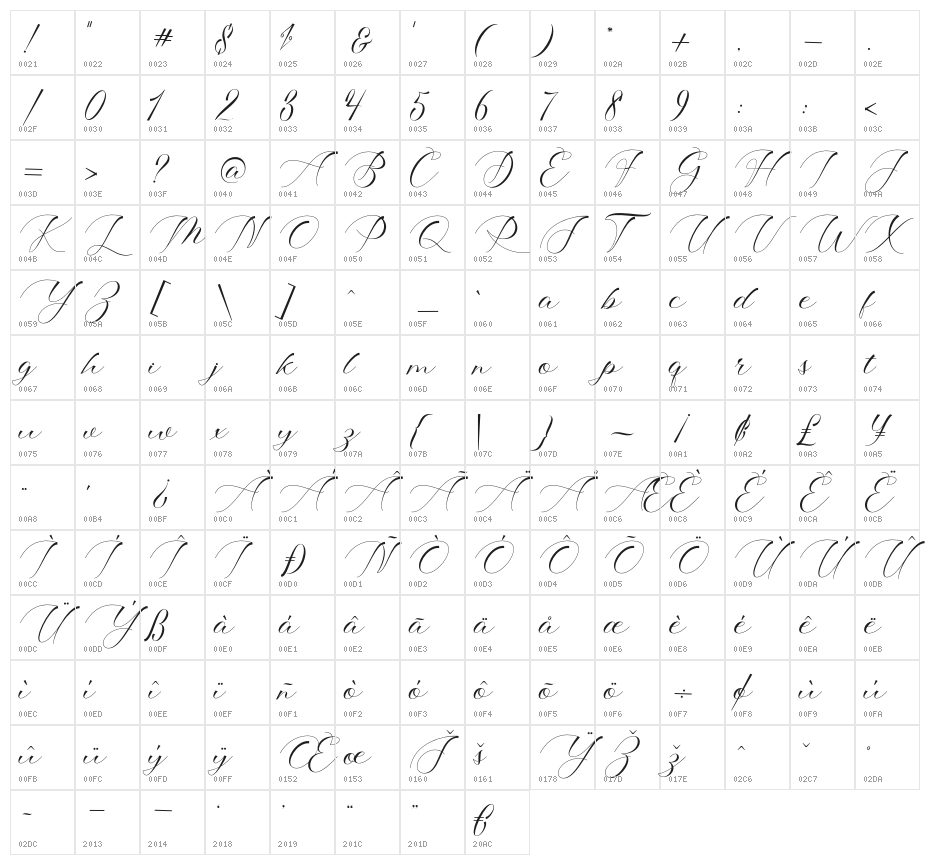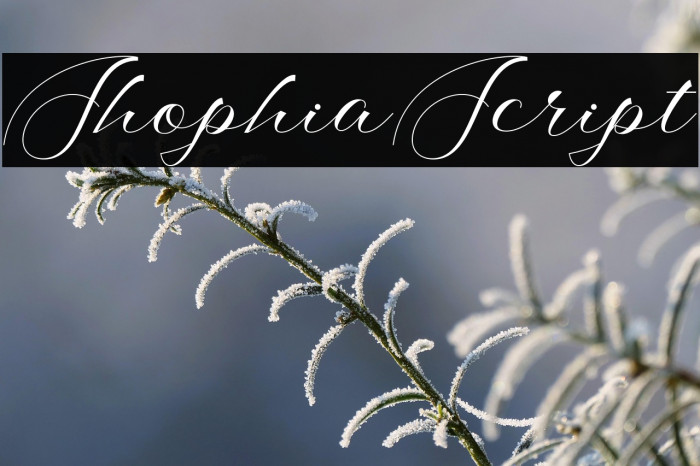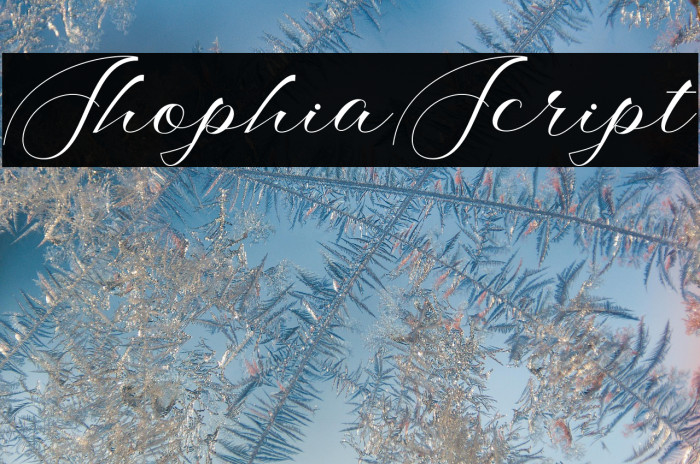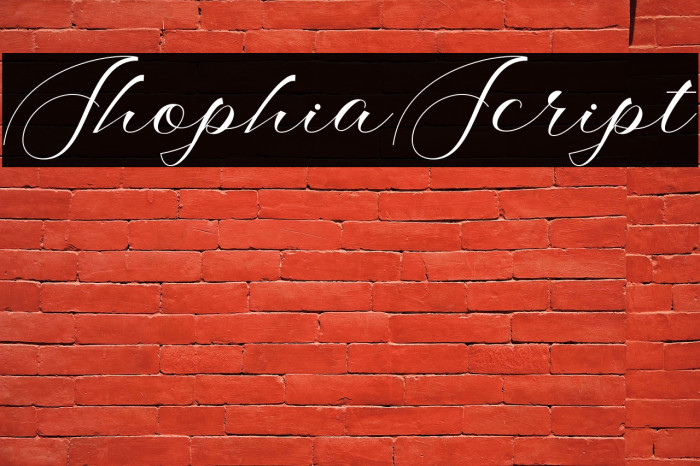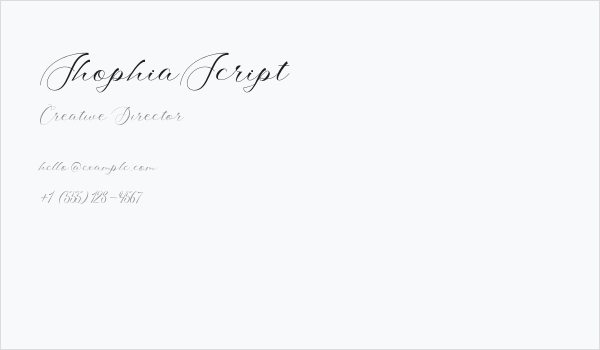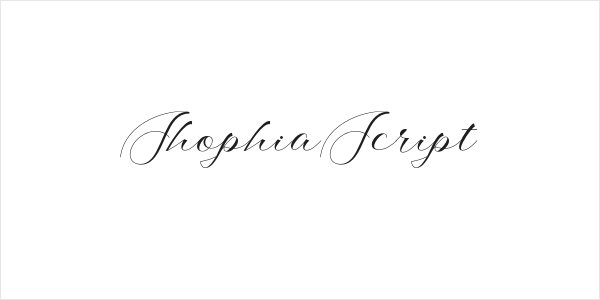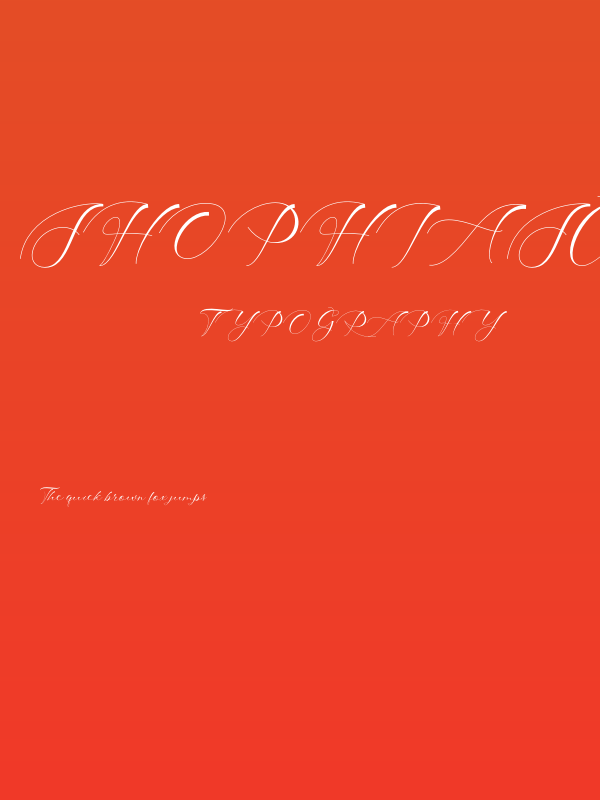
ShophiaScript Font
ShophiaScript Description
This elegant script font features flowing, cursive letters with a sophisticated and graceful appearance. The uppercase letters are characterized by their sweeping curves and flourishes, giving them a sense of movement and fluidity. The lowercase letters maintain a consistent style, with smooth connections between each character, enhancing the font's readability while preserving its decorative nature. The numerals are equally stylish, with a slight slant that complements the overall script style. Special characters are thoughtfully designed to match the aesthetic, making this font suitable for a variety of creative applications.
Overall StyleElegant, Decorative
Use CaseLogos, Invitations, Decorative text
Proposed ProjectsIdeal for wedding invitations, elegant branding, personal stationery, and decorative headings.